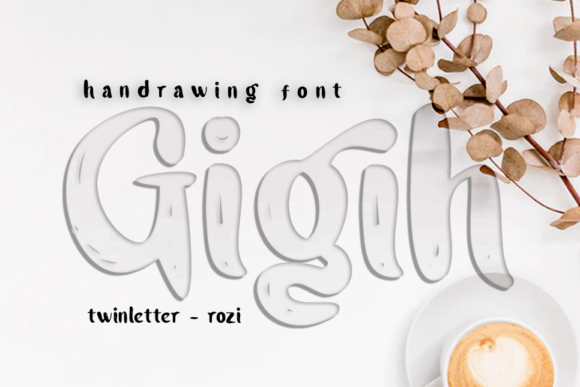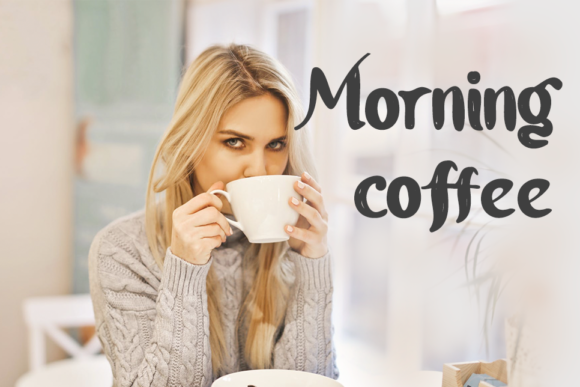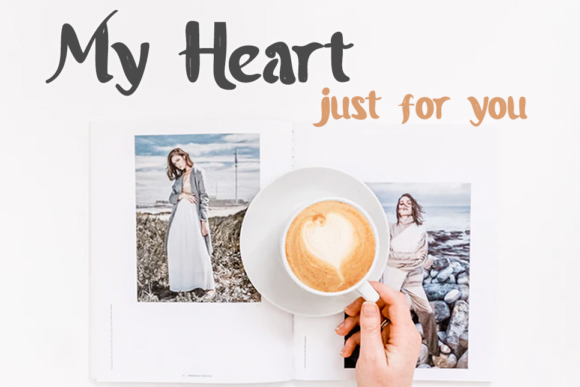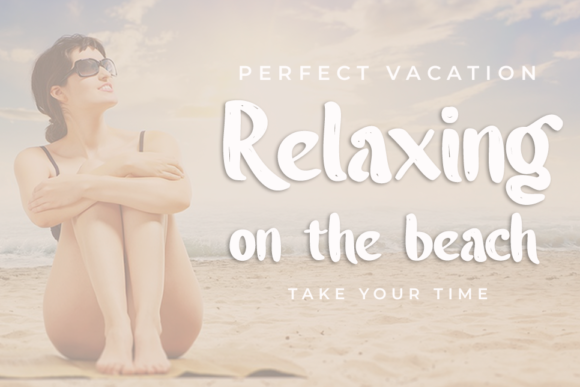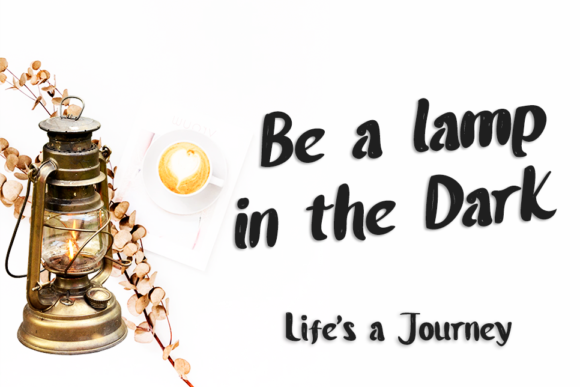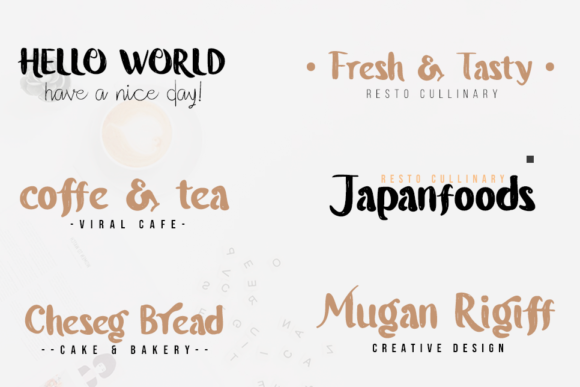
Introduction to Gigih Font
Gigih is a casual, fun handwritten font.
Clean and modern, this font is the perfect fit for all of your logos, branding, social media, and crafty DIY projects .
Key Features of Gigih Font
Why Choose Gigih Font?